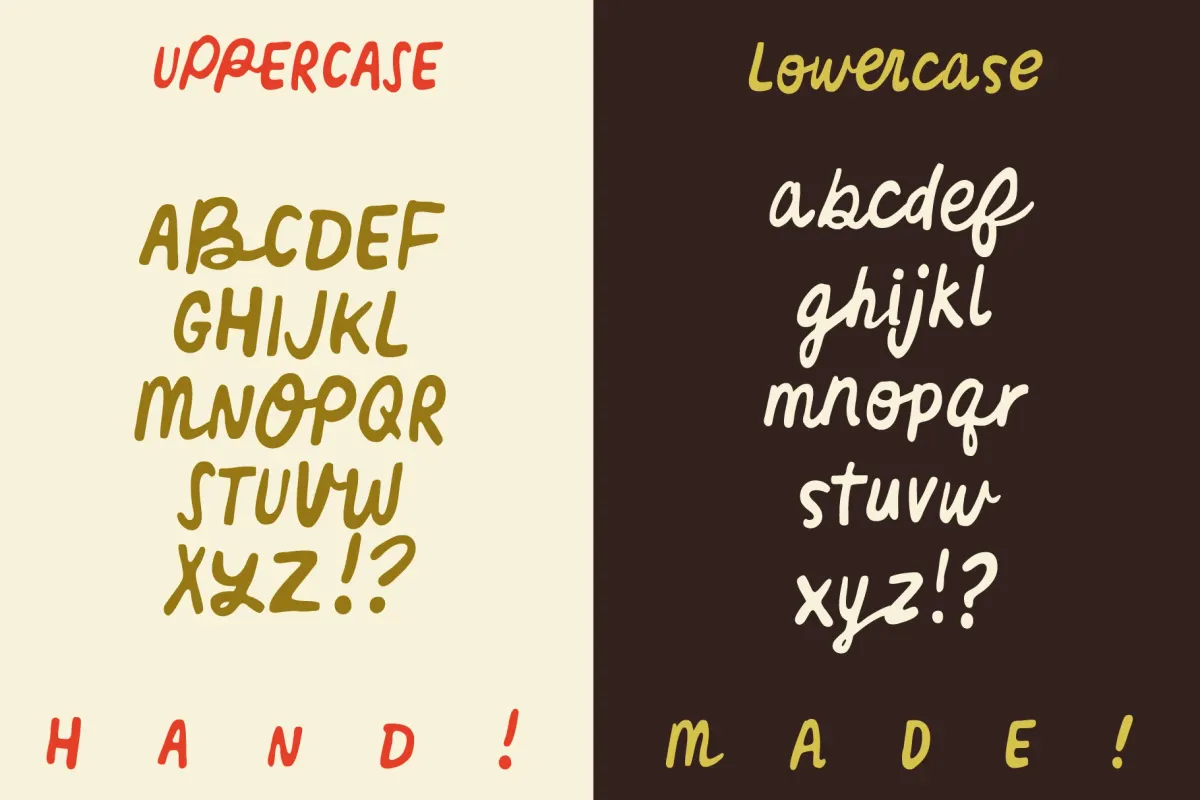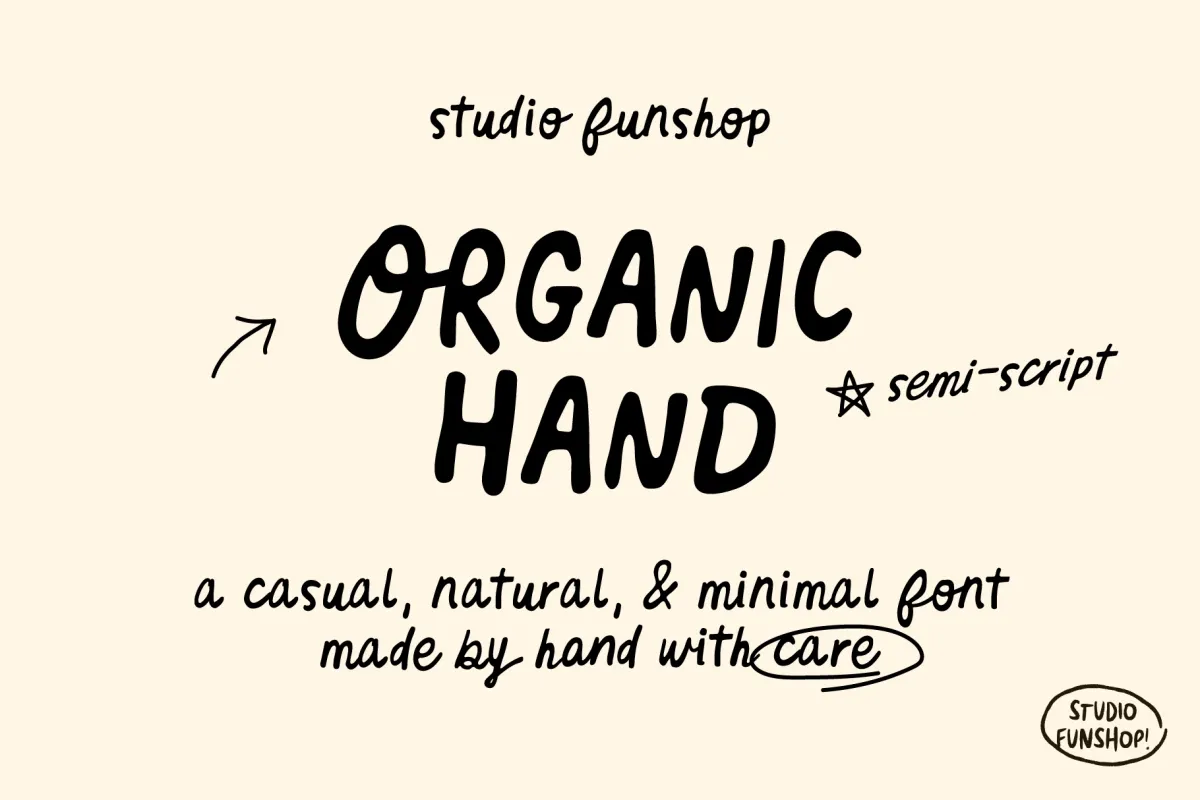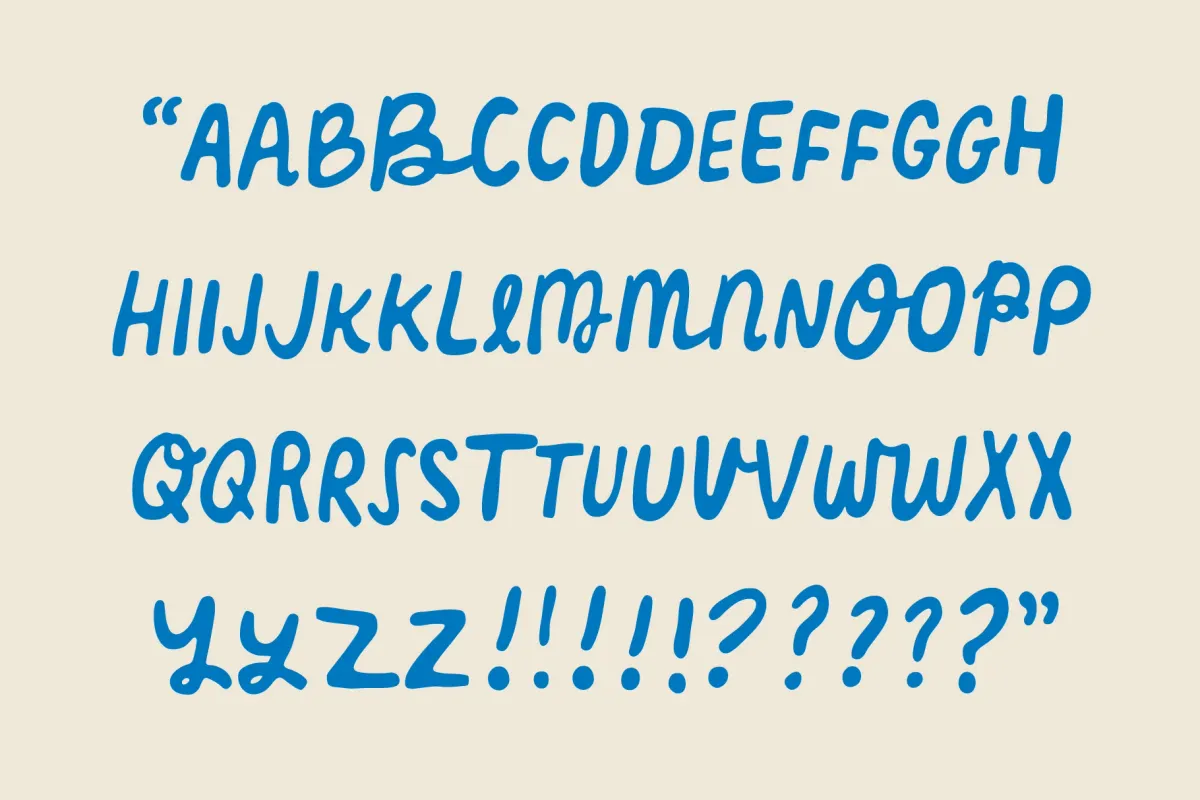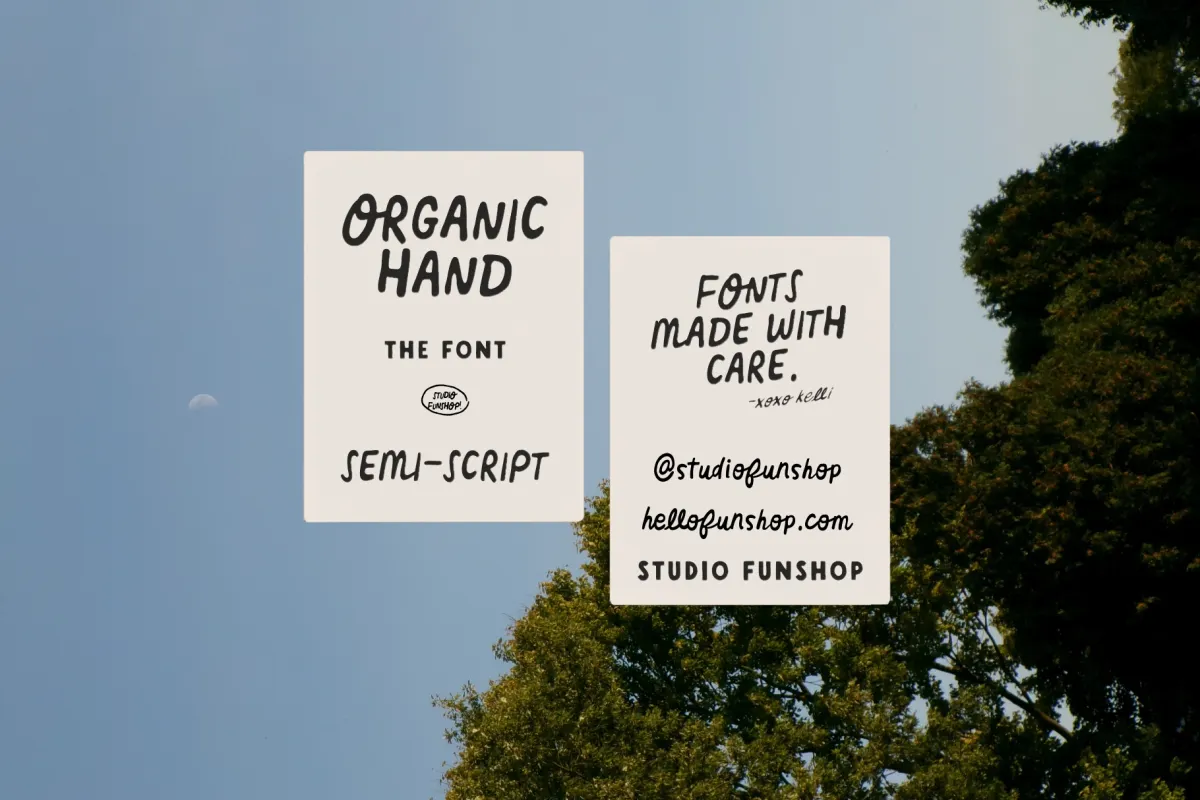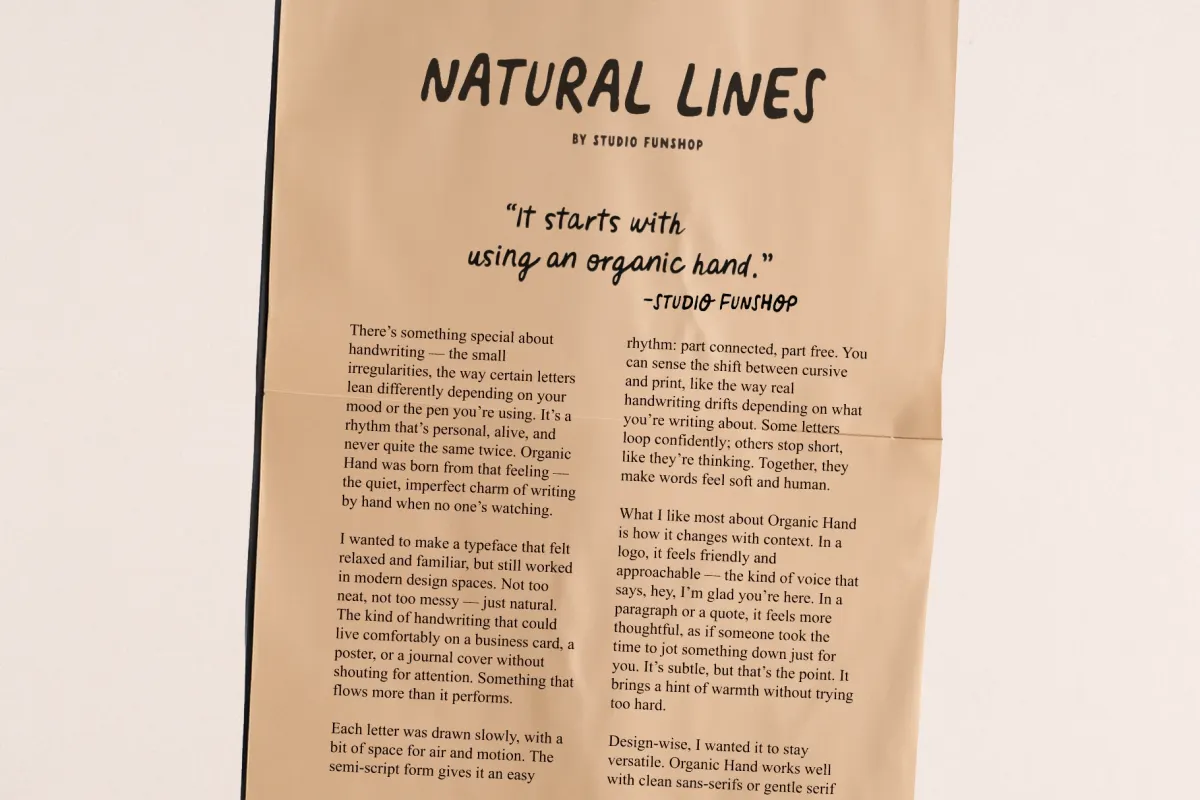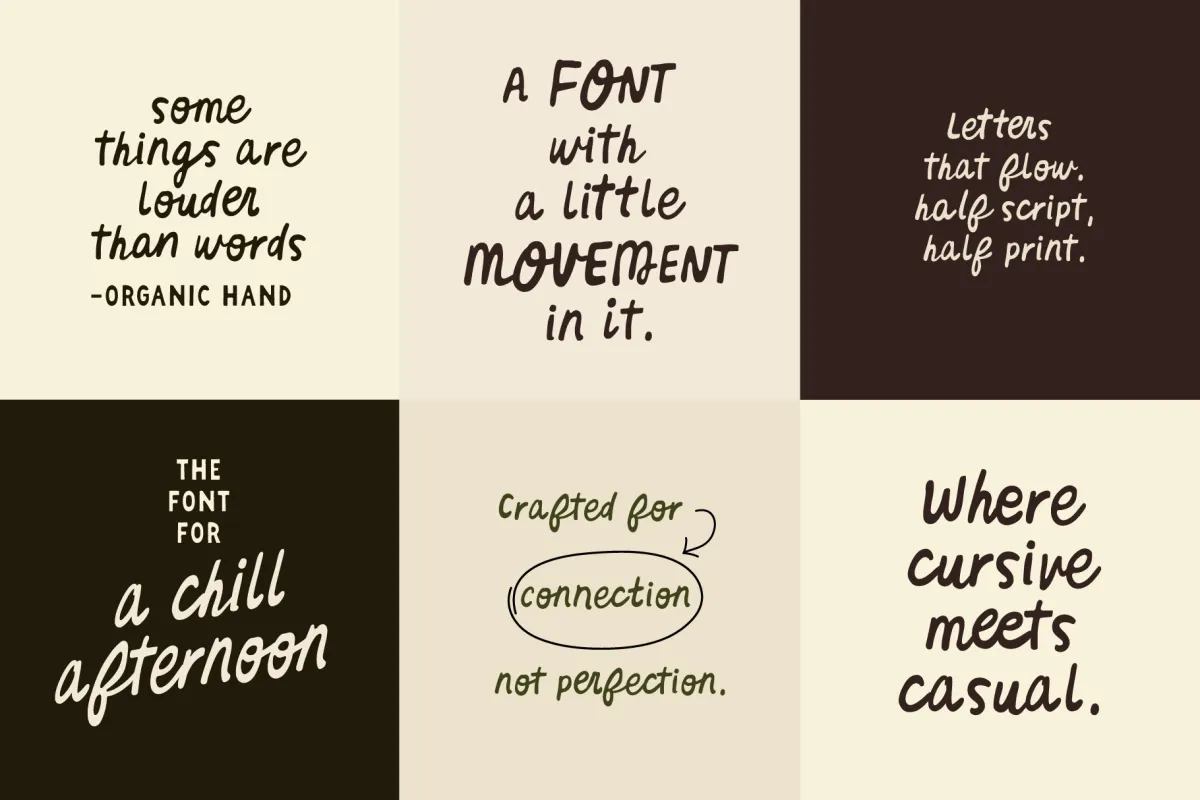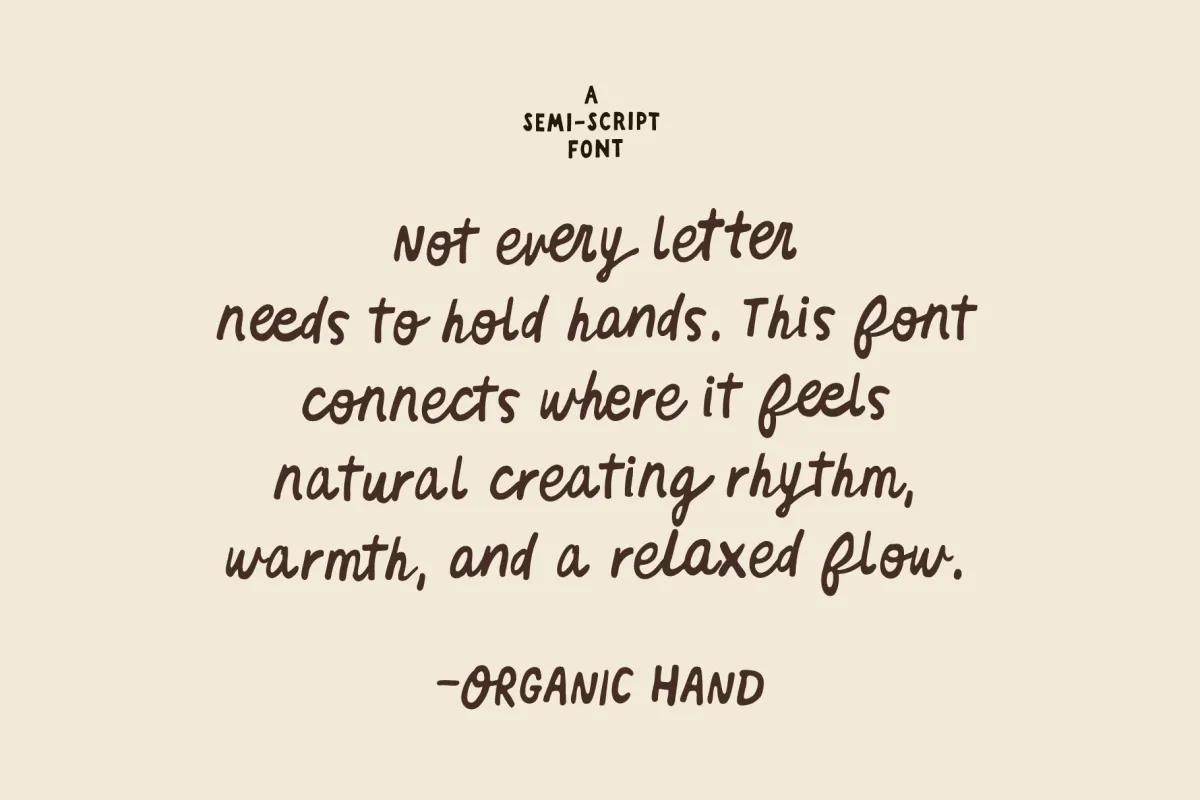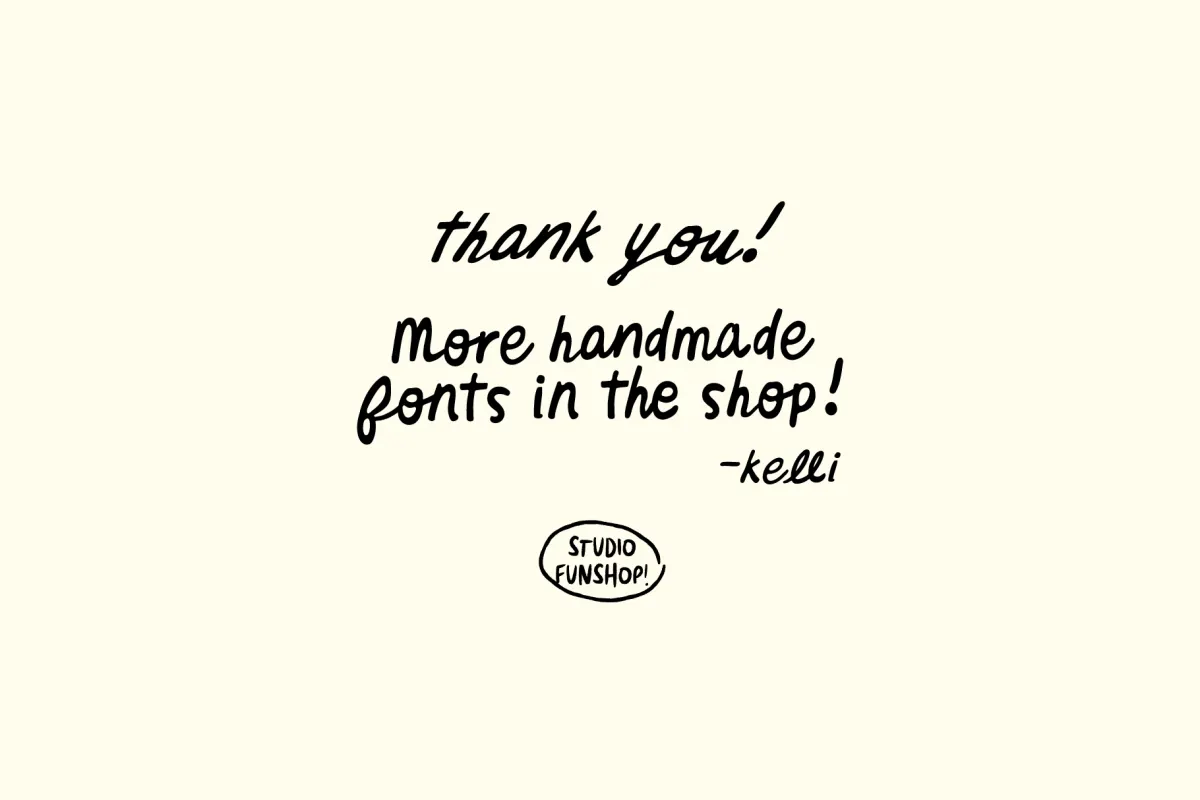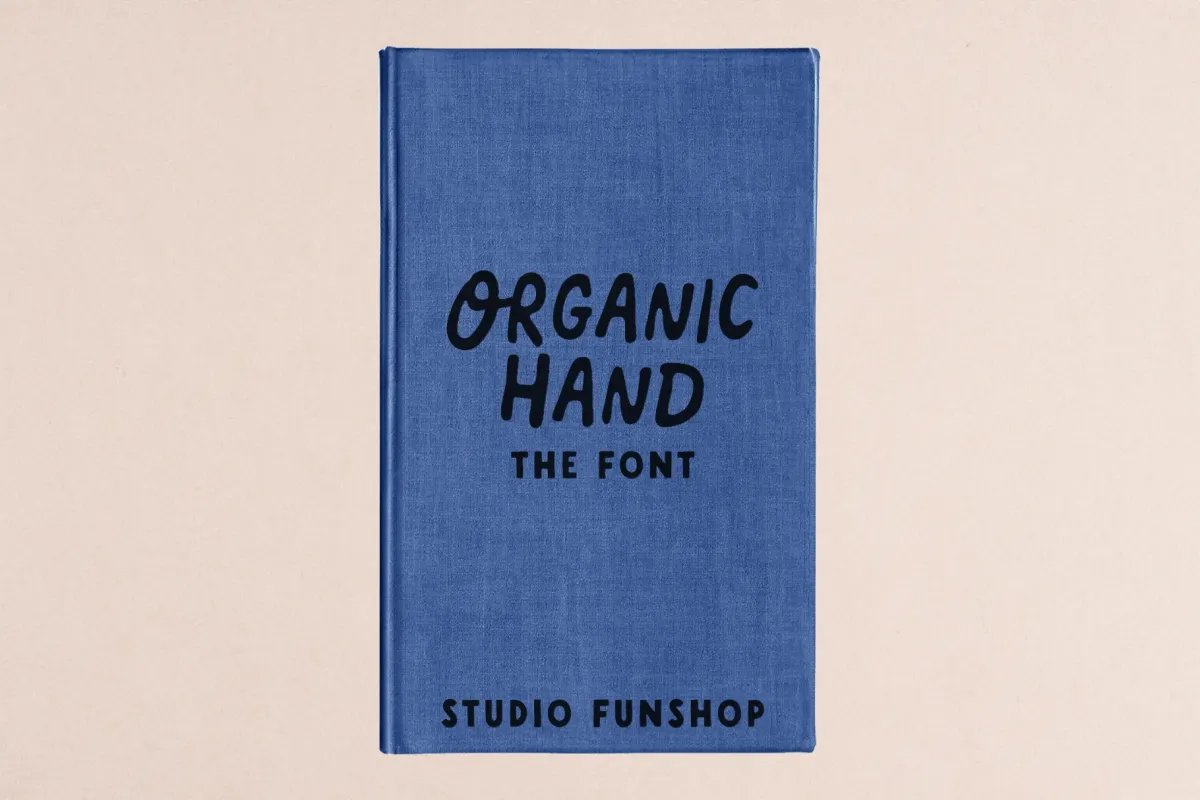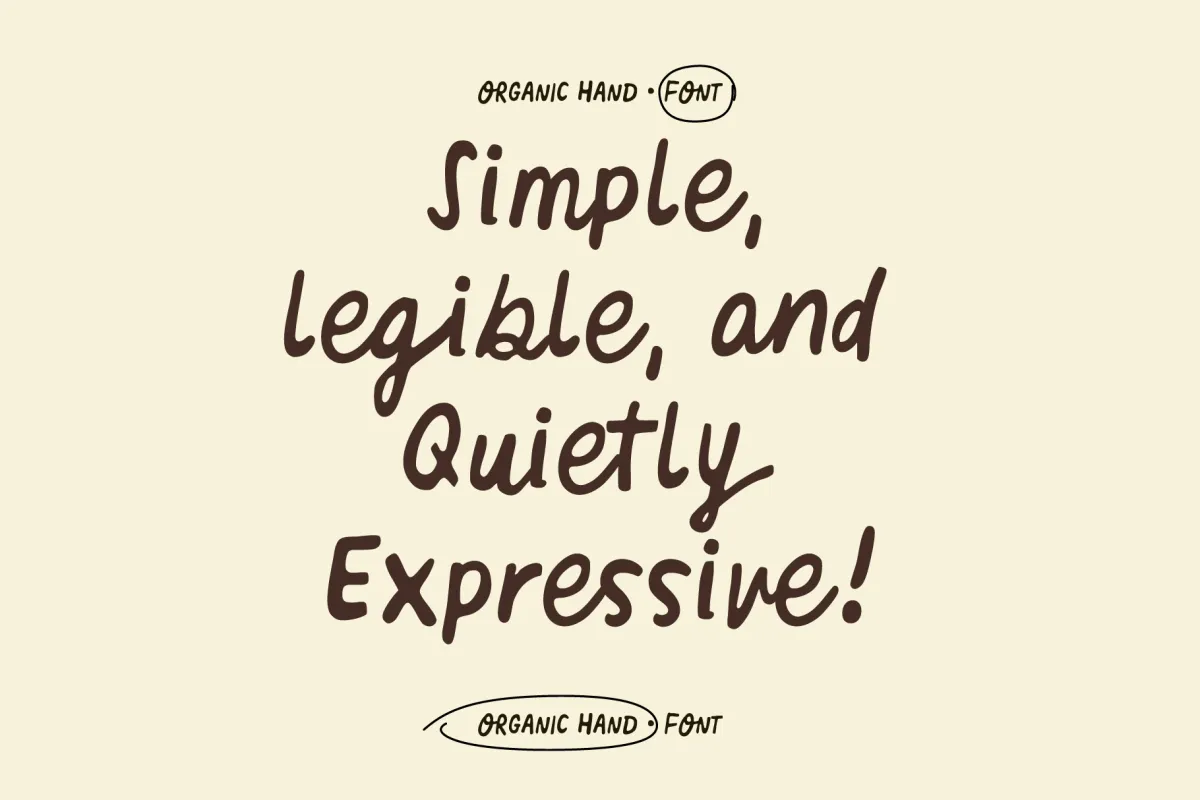
Organic Hand - Semi-Script Font
Organic Hand
Organic Hand captures the easy rhythm of natural handwriting. It blends the clarity of print with the gentle flow of script for a deeply relaxed look. The letters are drawn by hand, with soft curves, subtle wobbles, and imperfect, human-made strokes.
Balanced between casual and refined, this semi-script font plays it clean and approachable, with just enough movement to keep words lively — and lovely.
- Branding and logos — lifestyle brands, cafés, handmade shops, beauty labels, boutique packaging.
- Social content — quote posts, product launches, reels covers, story graphics, announcements.
- Editorial layouts — pull quotes, chapter titles, section headers, magazine callouts, journal covers.
- Merchandise — tote bags, mugs, t-shirts, stickers, art prints, branded accessories.
- Small business design — business cards, signage, labels, menu headers, insert cards.
- Crafts and printables — scrapbook titles, printable tags, journaling elements, DIY projects.